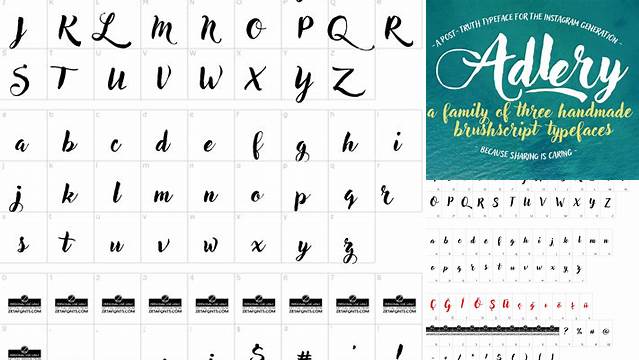
Hey guys! Today, we're diving deep into the world of typography, specifically focusing on the incredibly stylish Adlery Pro Swash. If you're a designer, a content creator, or just someone who appreciates beautiful fonts, you're in the right place. This article is your one-stop shop for everything Adlery Pro Swash, including how to snag a free download and start using it in your projects. Get ready to elevate your designs with this versatile and eye-catching font! We'll cover its features, explore its various uses, and guide you through the download process. So, buckle up and prepare to unleash your creativity with Adlery Pro Swash!
Adlery Pro Swash: Unveiling the Elegance of a Modern Font
Alright, let's kick things off by getting to know Adlery Pro Swash a little better. This isn't just any font; it's a statement. It's a modern typeface designed with a keen eye for detail and a flair for sophistication. What makes Adlery Pro Swash stand out? The defining characteristic is, of course, the swashes. These are the elegant flourishes and decorative elements that add a touch of artistry and personality to your text. The swashes on Adlery Pro Swash are meticulously crafted, providing a unique visual appeal that can instantly transform the look and feel of any design. Whether you're working on a logo, a poster, a website header, or even a social media graphic, Adlery Pro Swash can bring a touch of class and charm. The font family typically includes a range of weights and styles, offering you flexibility in how you use it. You might find regular, bold, italic, and swash versions, each designed to serve a specific purpose. The versatility allows you to create a cohesive and visually appealing design, no matter the context. The font's design is also quite readable, ensuring that while it is stylish, it doesn't sacrifice functionality. You can use Adlery Pro Swash for headlines, subheadings, and even shorter blocks of text, and it will maintain clarity and impact. It's a perfect blend of artistry and practicality. And the best part? The availability of a free download makes it accessible to everyone, from seasoned professionals to those just starting their design journey. So, if you're looking to add a touch of elegance and sophistication to your designs, Adlery Pro Swash is definitely worth checking out. Its unique swashes and versatile design make it an excellent choice for anyone looking to make a visual impact. Getting your hands on this font is easier than ever. We'll guide you through the process, ensuring that you can start using Adlery Pro Swash in your projects in no time. Just imagine the possibilities: creating stunning logos, designing captivating invitations, or crafting eye-catching social media posts – all with the help of this amazing font!
Exploring the Distinctive Swashes and Decorative Elements
Let's delve deeper into what truly sets Adlery Pro Swash apart: those stunning swashes and decorative elements. They're more than just fancy add-ons; they're the soul of the font, the reason why it captures attention and adds a unique flair to any design. The swashes are the beautifully curved extensions that flow from the letters, adding a touch of elegance and artistic flair. They can be long and sweeping, or short and subtle, depending on the style and the letter itself. These swashes add a dynamic and visually engaging element, making your text feel more alive and interesting. Decorative elements within Adlery Pro Swash often include alternative letterforms, ligatures (where two or more letters are joined together to create a unique character), and ornaments. These elements can be used to add a sense of sophistication or playfulness, depending on the design. Ligatures, in particular, are useful for creating a smooth flow between letters, enhancing readability and visual appeal. The meticulous design of these swashes and decorative elements reflects the attention to detail that went into creating Adlery Pro Swash. Each curve, each flourish is crafted to harmonize with the rest of the font, creating a cohesive and visually stunning effect. This is not just about adding a pretty design; it's about elevating the overall aesthetic and making a statement. For example, imagine a logo where the initial letter features a dramatic swash that wraps around the rest of the text. Or, consider an invitation with a delicate swash adorning a crucial word, such as a name or a date. These elements instantly grab attention and create a memorable impression. The presence of these swashes and decorative elements also contributes to the font's versatility. They provide designers with a wealth of options to customize and tailor their designs to specific needs and preferences. Whether you're aiming for a classic, vintage look or a modern, artistic vibe, Adlery Pro Swash offers the tools to achieve it. In essence, the swashes and decorative elements of Adlery Pro Swash transform simple text into artwork, making it an excellent choice for projects that demand elegance, sophistication, and a touch of artistry. And yes, you can get it with a free download, allowing you to add that special touch to your projects.
The Versatility of Adlery Pro Swash: Applications in Design
Now, let's talk about how you can actually use Adlery Pro Swash in your designs. The beauty of this font lies in its versatility. It's not just for one specific type of project; it can be adapted and used in a wide variety of applications. First off, let's consider logos and branding. Adlery Pro Swash is an excellent choice for crafting unique and memorable logos. The swashes and decorative elements can add a distinctive flair that helps your brand stand out. Imagine a logo with the initial letter featuring a sweeping swash that immediately catches the eye. This can create a strong brand identity and make a lasting impression on your audience. Moving on to print design, Adlery Pro Swash is perfect for invitations, greeting cards, and posters. The elegant design adds a touch of sophistication and charm to these projects. The swashes can be used to highlight important information, such as names, dates, or special messages. The font's readability also makes it suitable for headlines and short blocks of text. Websites and digital media are another area where Adlery Pro Swash shines. You can use it for website headers, social media graphics, and other digital content. The font's stylish design can make your website look more polished and professional, and it can help you grab attention on social media. The decorative elements can be integrated into your visuals to create engaging content. You can also use it to create stunning quote graphics. This font can be used in a variety of applications, from branding to web design. The free download makes it even easier to experiment with it in your own projects. The applications are truly limitless. With a bit of creativity, you can use this font to create visually stunning projects that capture attention and make a statement. It’s all about finding the right balance and knowing where to apply it for the best effect.